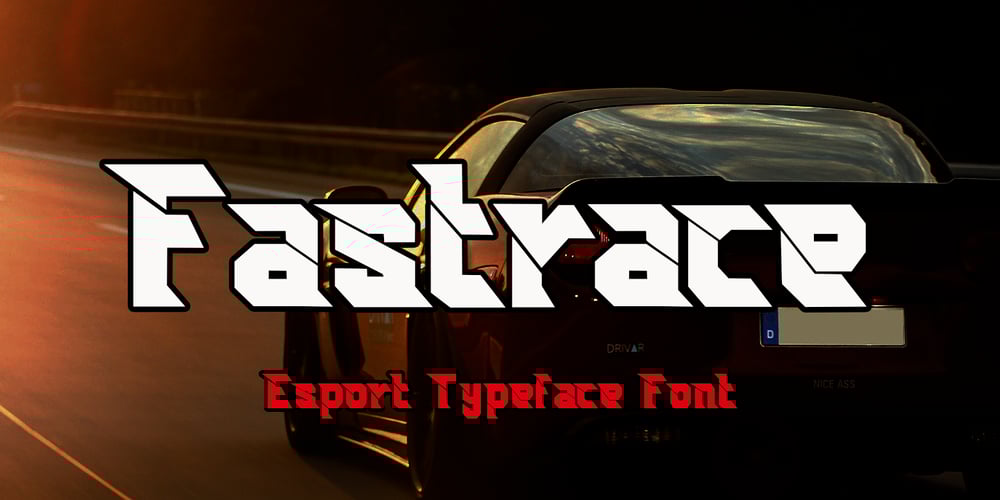
Fastrace Font Family was designed by Saiful Anwar and published by Sealoung. Fastrace contains 1 styles and family package options. Fastrace is a classic sport font. Made for any professional project especially that related to the sports. Beside that, this font can be used for printing, branding and quotes.Features: PUA Encoded Multilingual Support Numerals and Punctuation Thank you for downloading premium fonts from Sealoung Studio